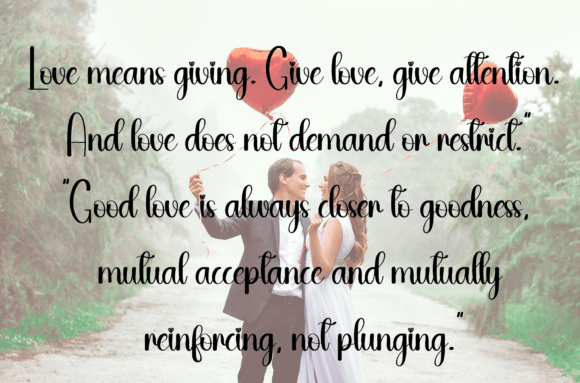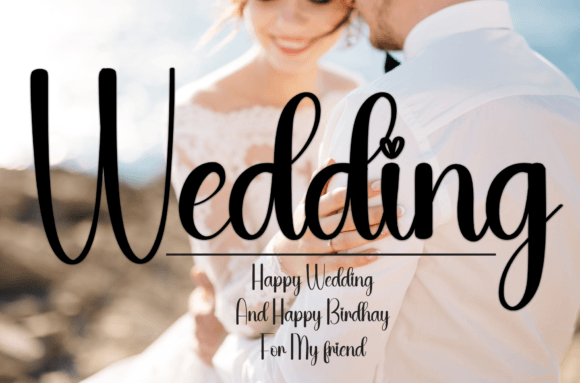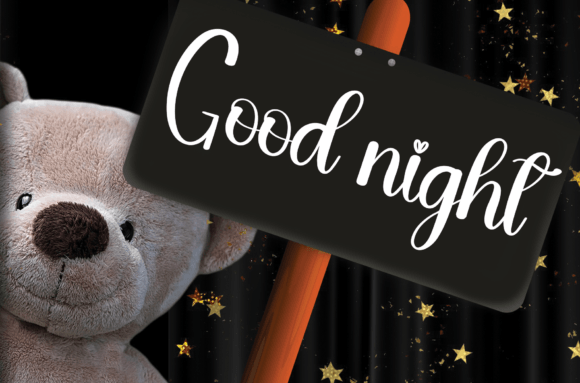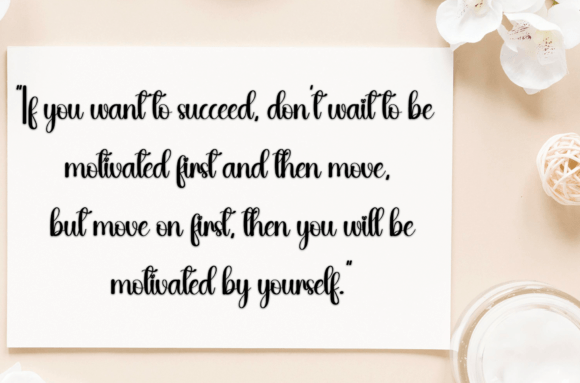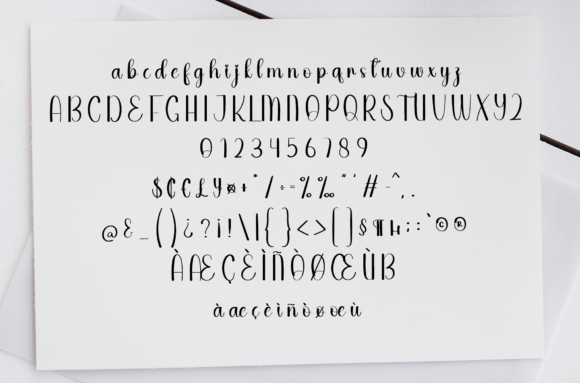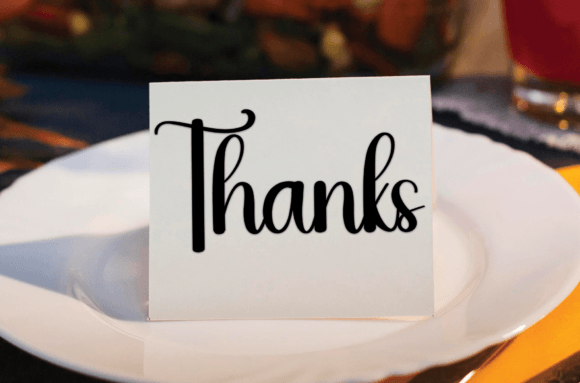
Saturday
About Saturday
Saturday is a sweet handwritten font. Friendly and cute, this font is ideal for writing wedding invitations, cards, or any other design that might need a fun touch!